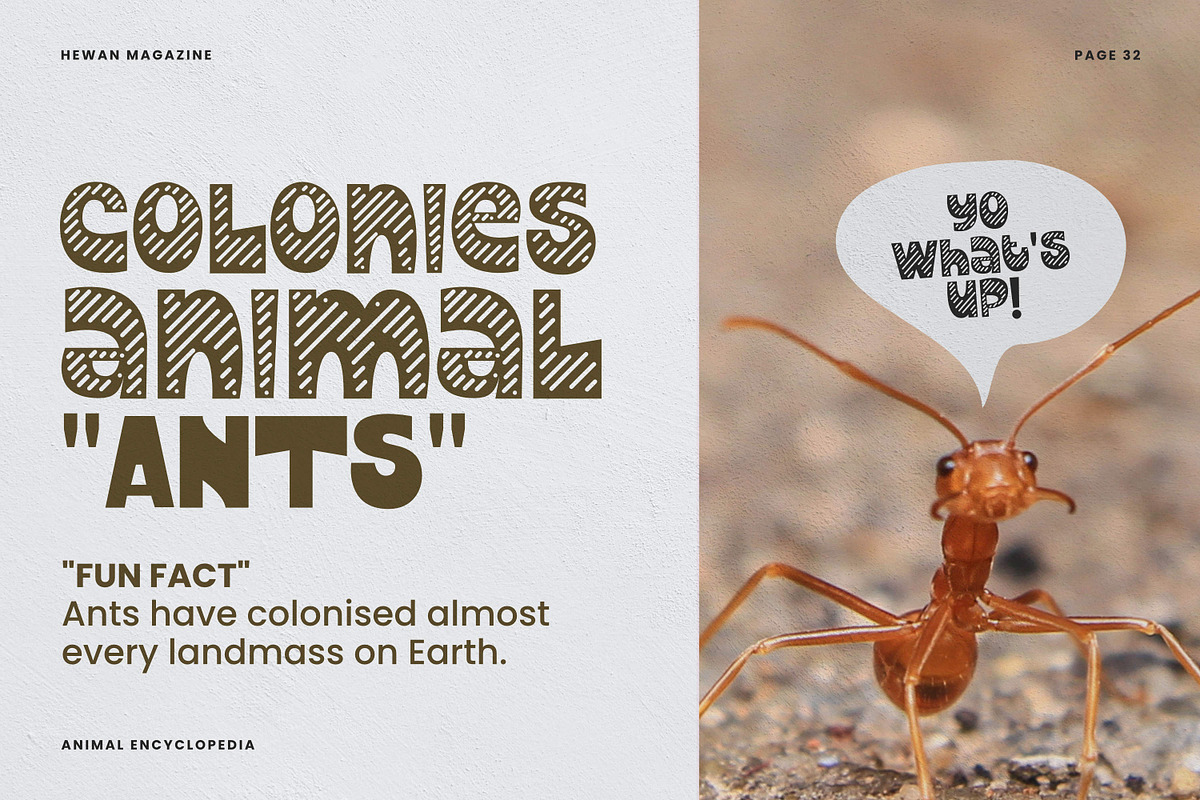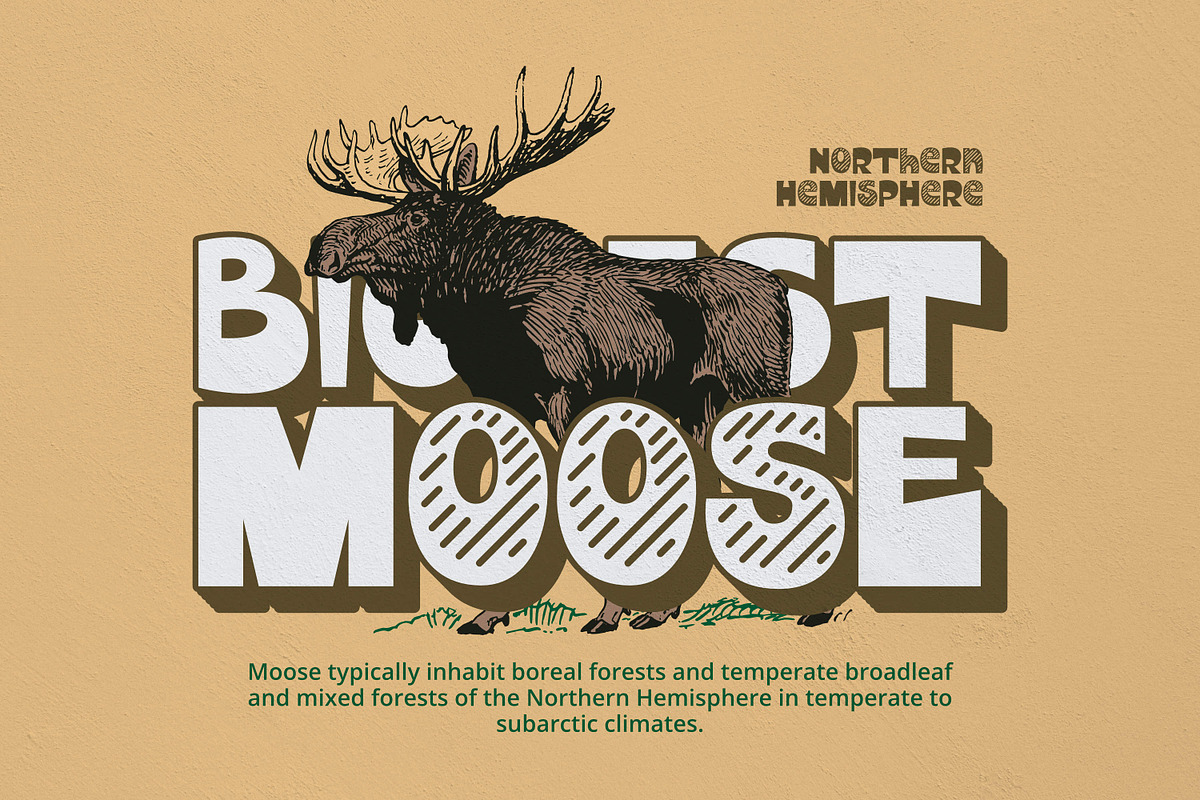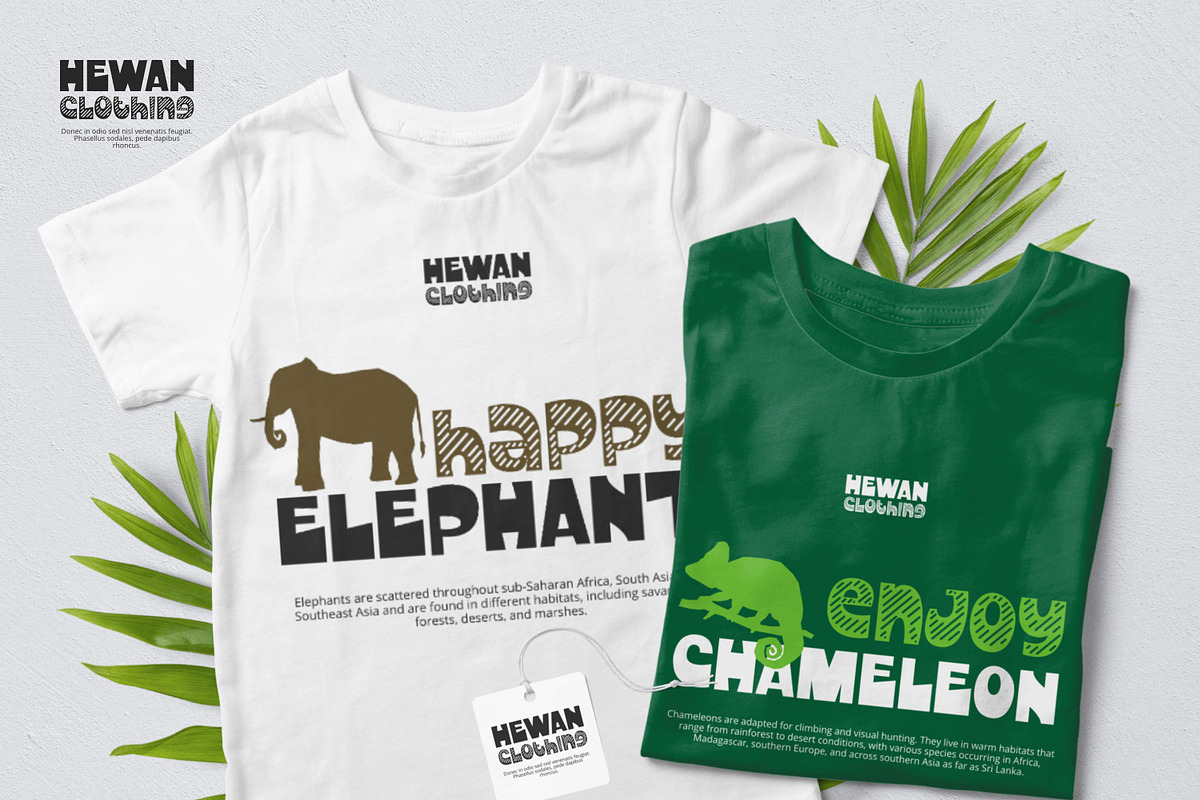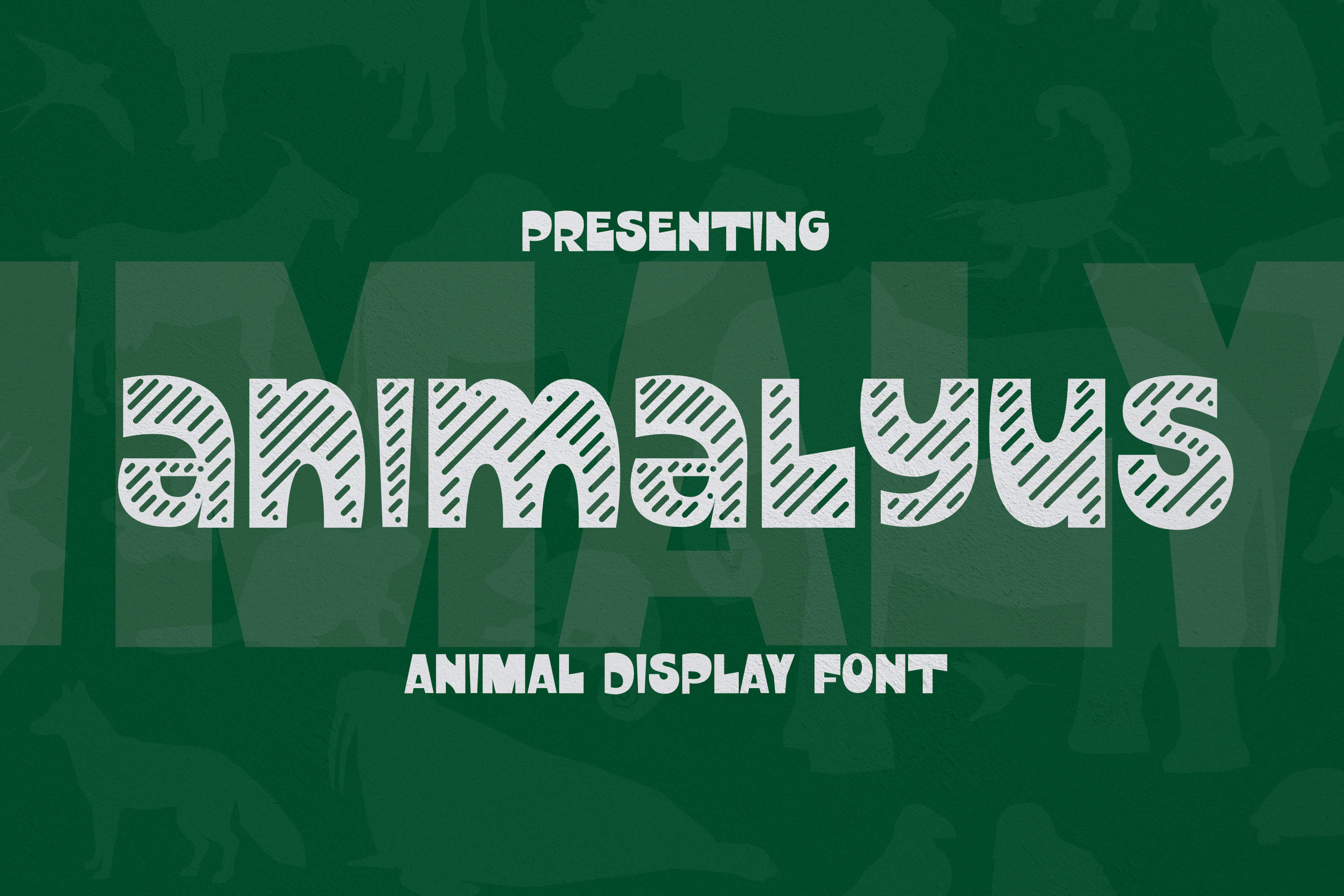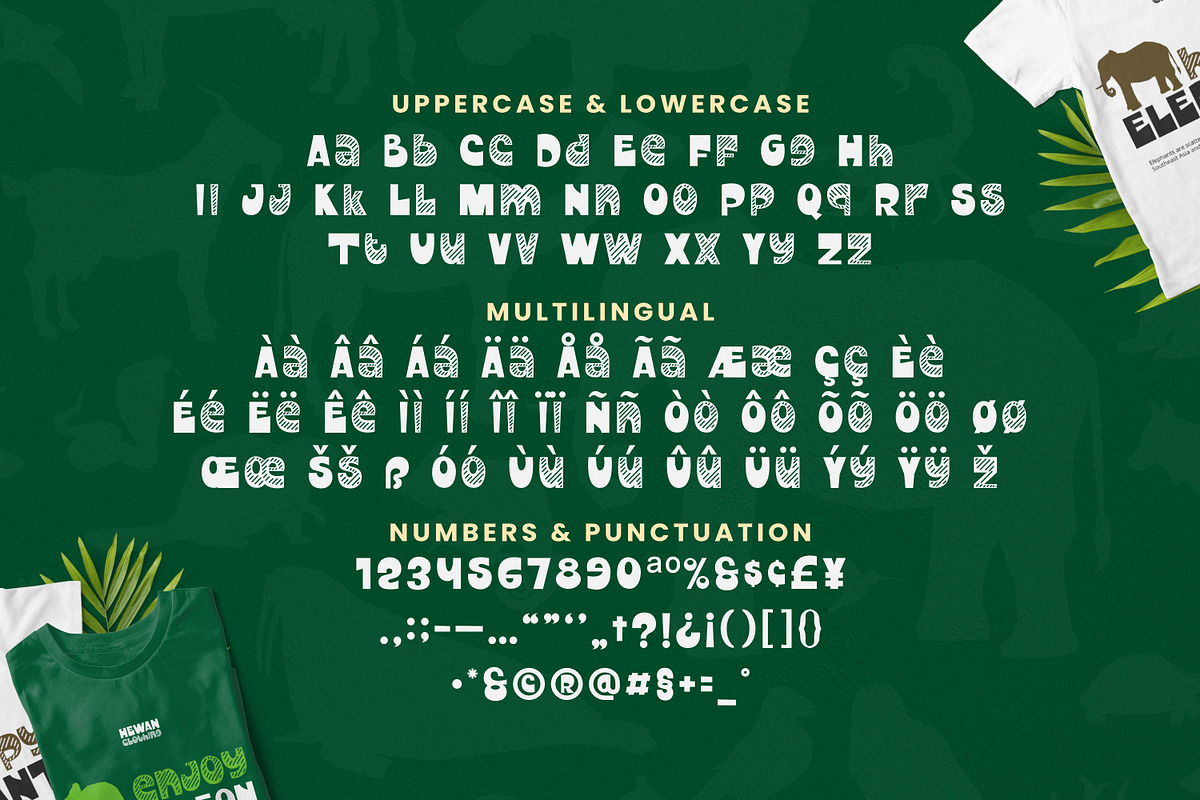
Animalyus Font
Font product Suitable for T-shirt designs, Crafts, Posters, Illustrations, Books, Packaging, Logos, Mugs, Games, Web, Wall Art or other design works.